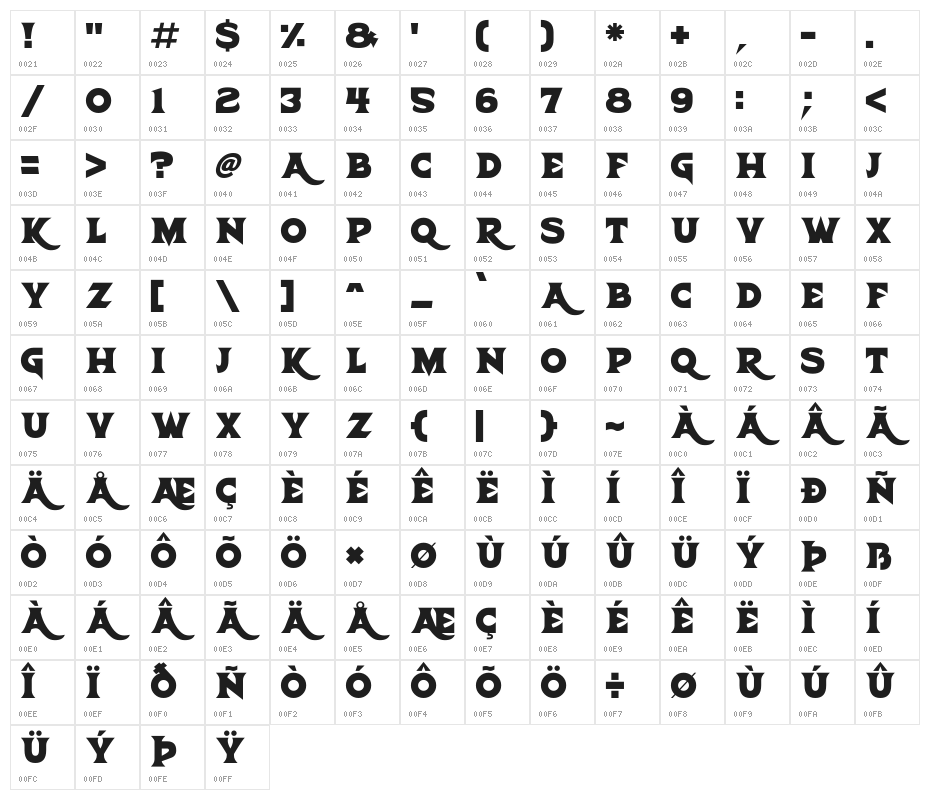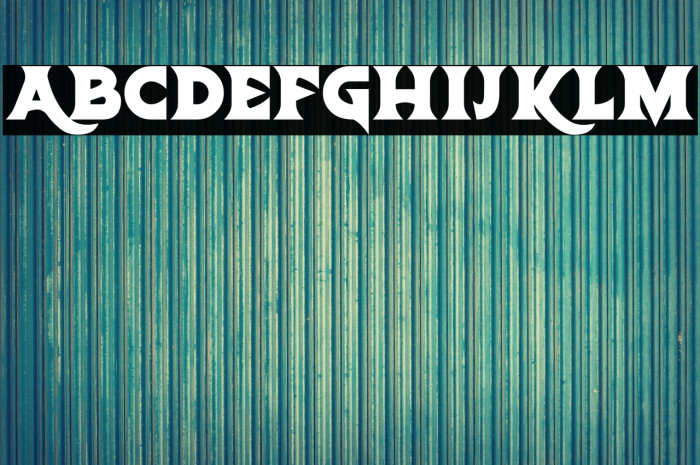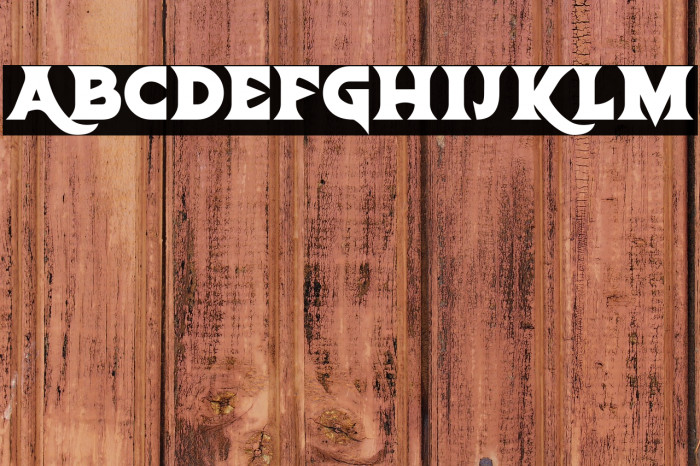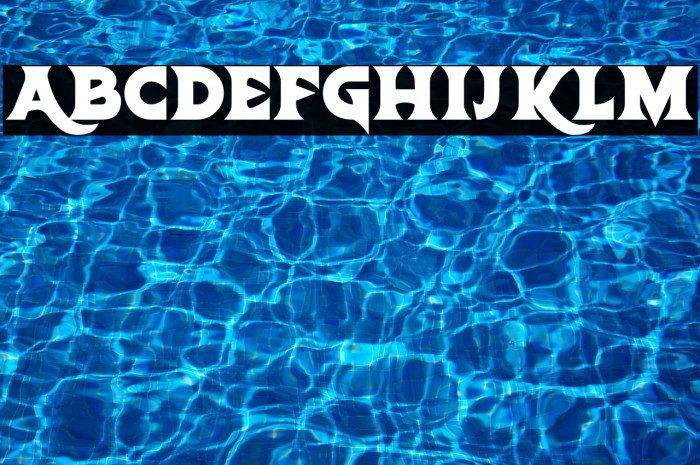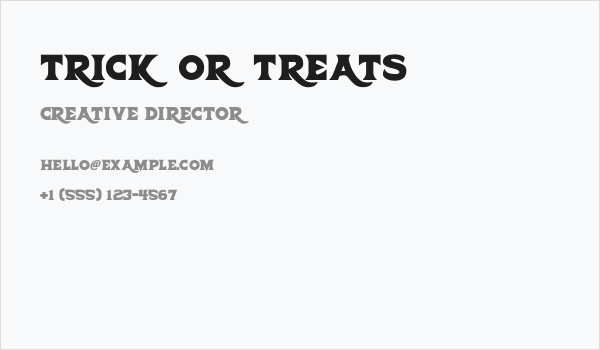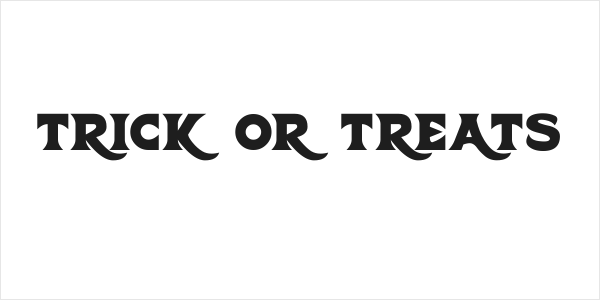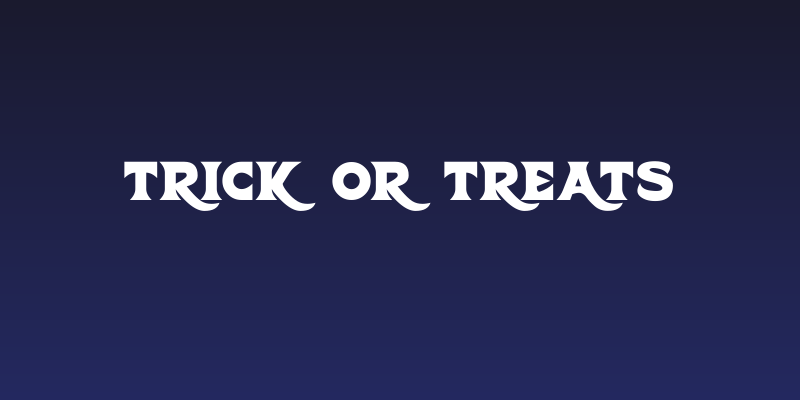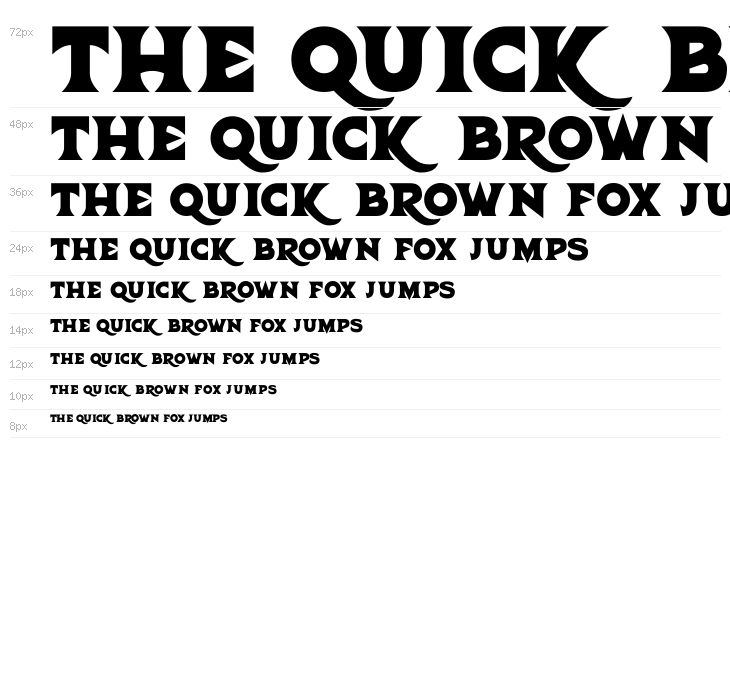
Trick Or Treats Font
Trick Or Treats Description
This font features a bold and dramatic style with sharp, angular serifs and a distinct gothic flair. The uppercase letters are characterized by their thick strokes and pointed edges, creating a sense of intensity and power. The lowercase letters maintain the same boldness, ensuring consistency throughout the typeface. Numbers and special characters are equally robust, with a design that complements the overall gothic theme. The font's unique style makes it ideal for projects that require a strong visual impact.
| Overall Style | Gothic, Dramatic |
| Use Case | Headlines, Posters, Logos |
| Proposed Projects | Ideal for Halloween-themed designs, horror movie posters, gothic event invitations, and any project needing a bold, dramatic typeface. |